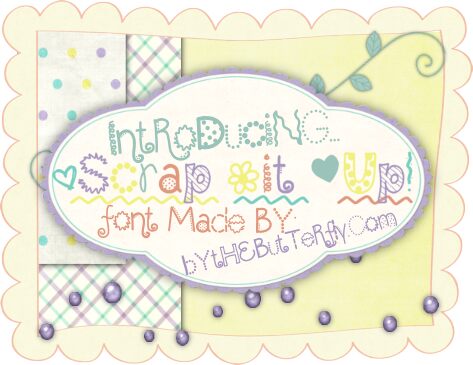
ScrapItUp
******** SYMBOL KEYS ********
Use the _ key for the squiggly underlines (after every couple of letters).
Use the = key for the flower.
Use the + key for the scribble heart.
Use the * key for the larger heart.